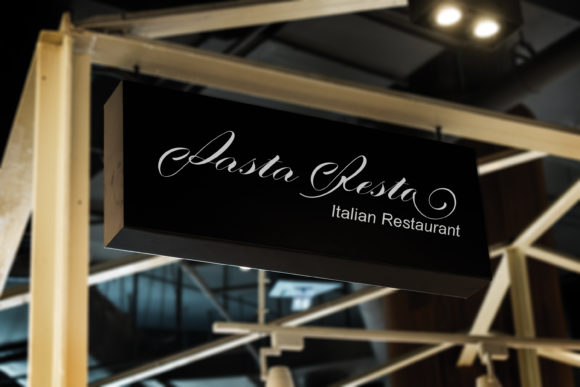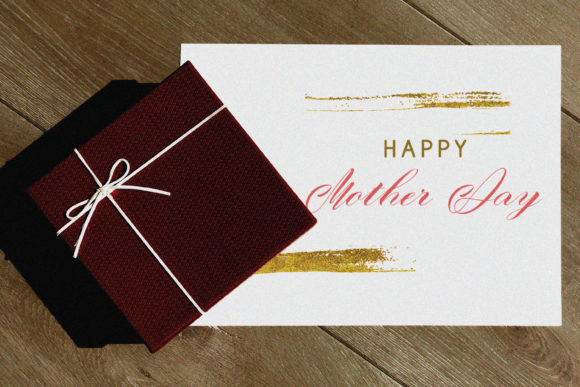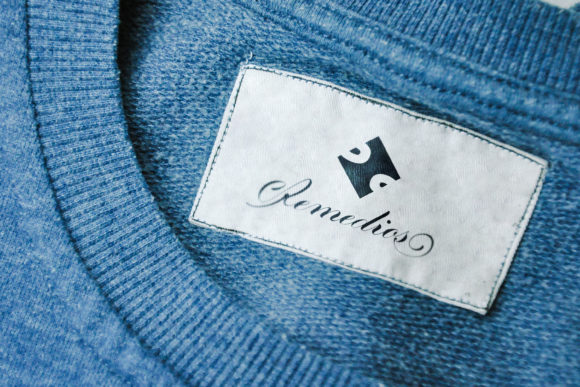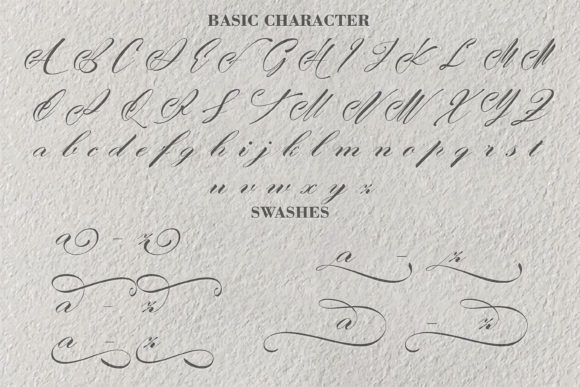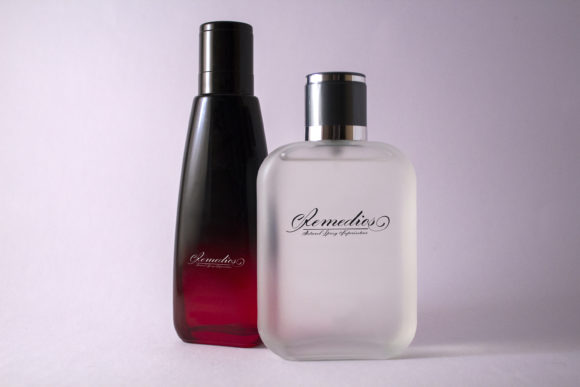
Remedios Font
About Remedios Font
Remedios is a gorgeous script in the tradition of classic calligraphy. Remedios comes with specific OpenType features including contextual changes, style changes, initial and final forms, and much more, which make this fancy script unbelievably versatile.